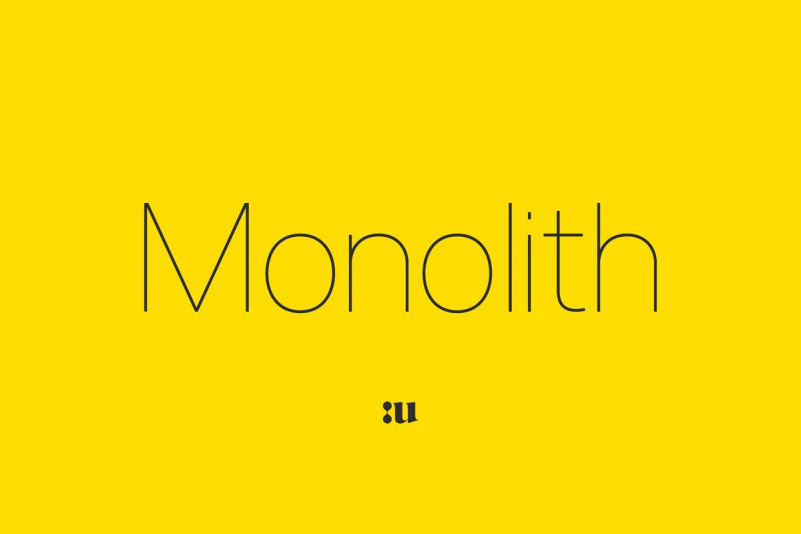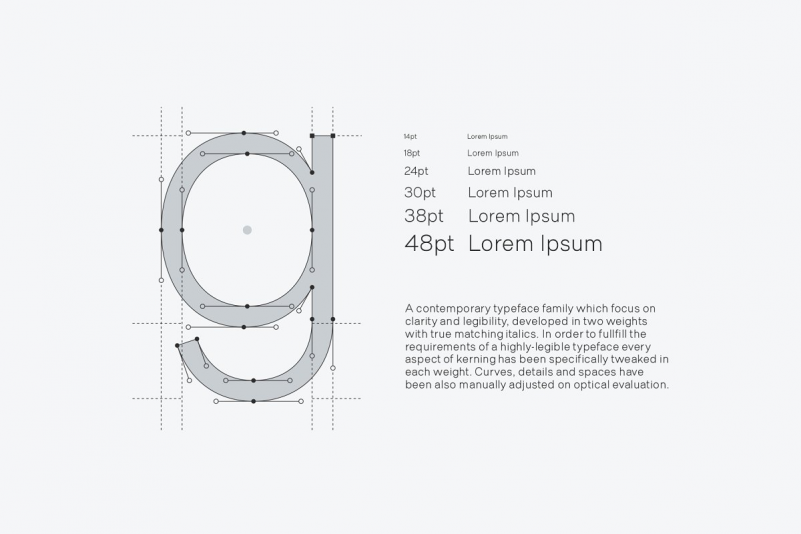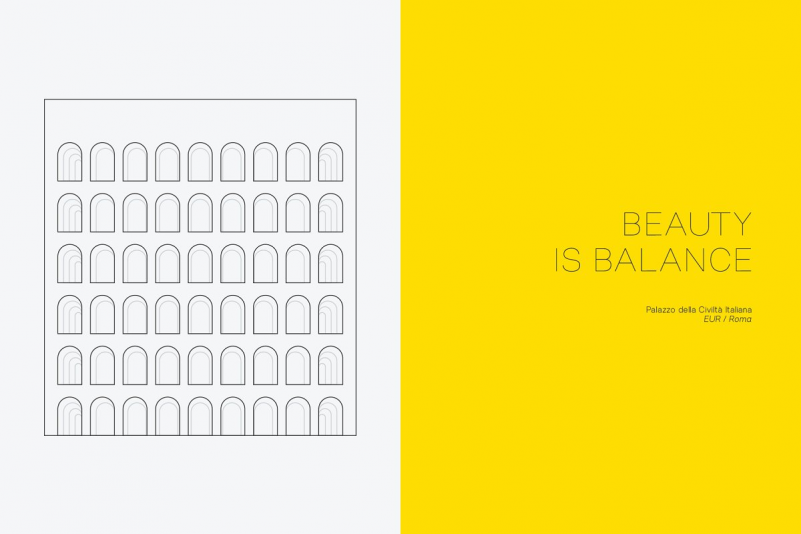
Monolith Font
Monolith includes, as previously said, two contrasting versions: Light and Regular with corresponding true italics. This font family combine modernist shapes with slight grotesk touches. Each variant was designed with an attentive optical evaluation; curves, details and spaces were specifically tweaked to better suit the requirements of a highly-legible typeface.